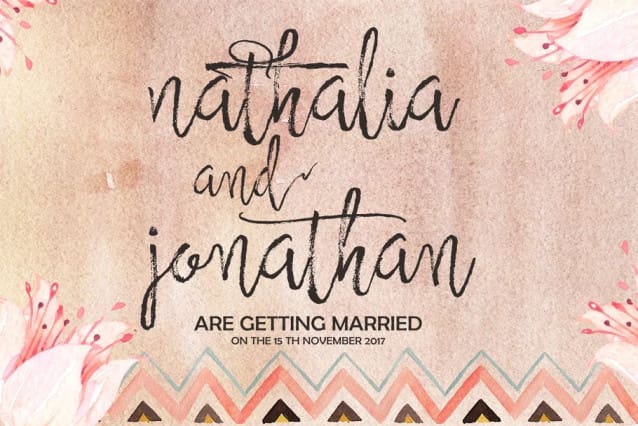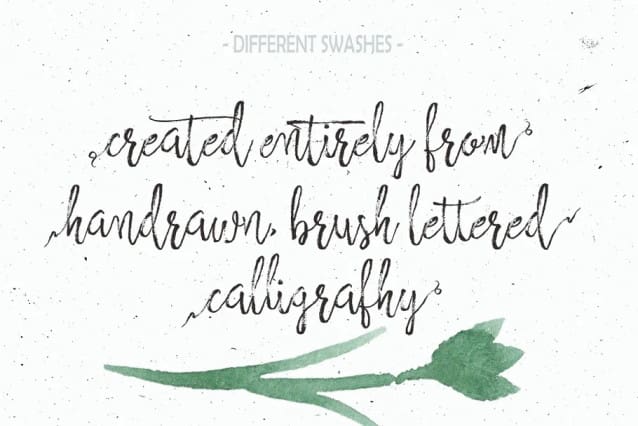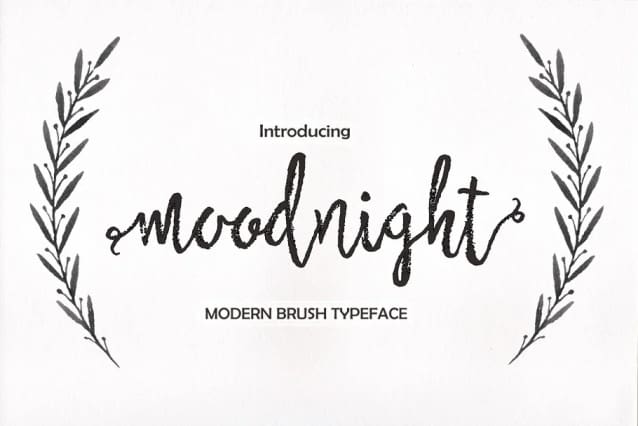
Moodnight Brush Font
Moodnight Brush Font is a new hand brush font , elegant, organic fun with dancing baseline. Different alternates and swashes to the beginning and ends of all lowercase.
Features 302+ glyphs and 130+ alternate characters. Opentype features with ligatures, stylistic sets and International support for most Western Languages is included. This fonts can be used for various purposes.such as headings, signage, signature, t-shirt, letterhead, lable, wedding invitation, logos, posters, news, badges etc.